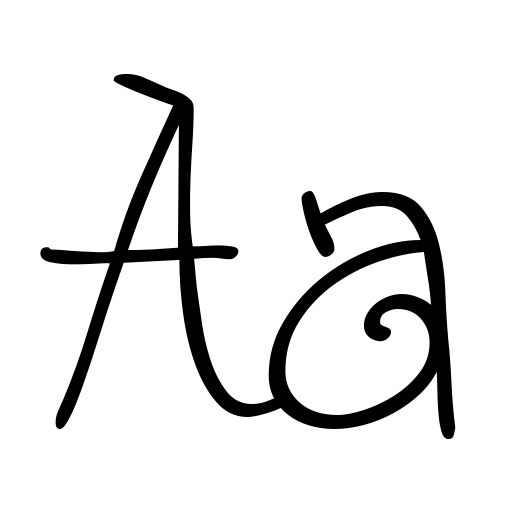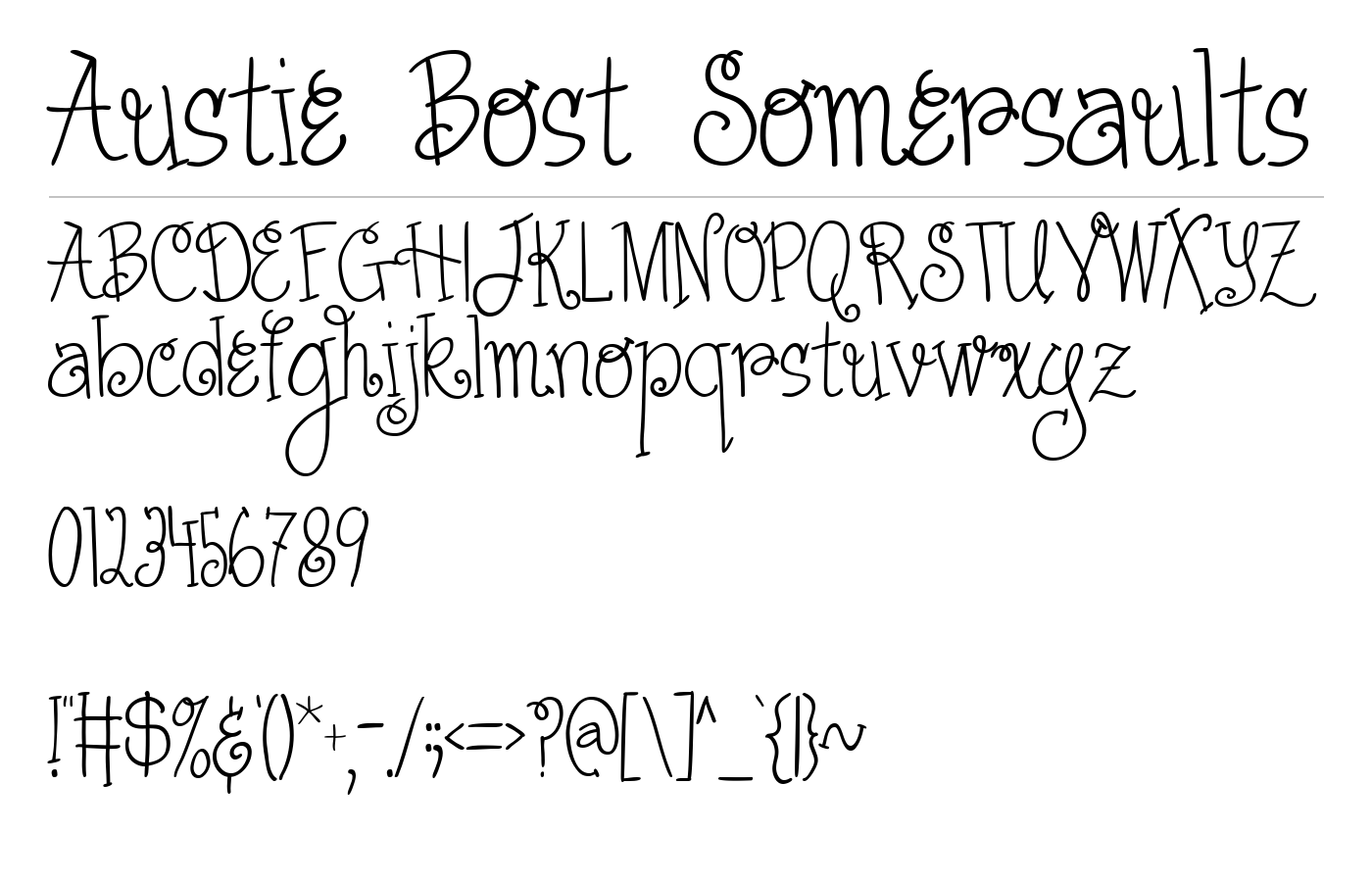
Austie Bost Somersaults is a playful, hand-drawn script font with a whimsical and quirky personality. Its thin, delicate strokes and tall, narrow letterforms give it a light and airy feel, while the unique curls and loops add a sense of fun and creativity. This font is ideal for informal, artistic designs like greeting cards, children’s books, or creative branding where a casual and imaginative tone is desired.
| Font family | Austie Bost Somersaults Font |
| Designer | Austin Owens |